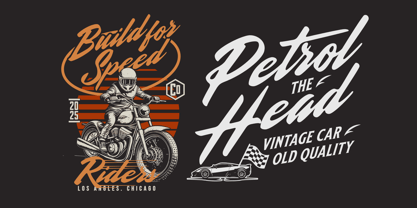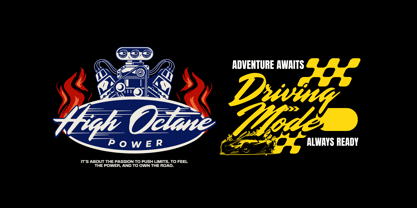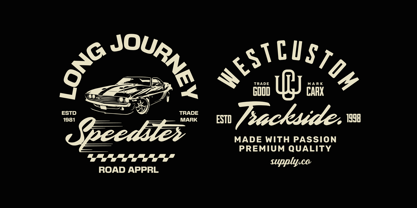
Highway Man
by Mans Greback
The Highway Man Font Family was designed by Måns Grebäck and published by Mans Greback. Highway Man contains 2 styles and family package options.
Highway Man is a high-speed script typeface with an intense, fast-moving style.
Its bold strokes and slanted letters create a sense of momentum, making it perfect for themes of adventure and rebellion. The unique horizontal motion lines running over the text makes it as if the characters are rushing forward on a highway.
With nods to vintage automotive culture and classic racing aesthetics while being inherently progressive, Highway Man carries both a retro and modern appeal.
The font is built with advanced OpenType functionality and guaranteed top-notch quality, containing stylistic and contextual alternates, ligatures and more automatic and manual features; all to give you full control and customizability.
It has extensive lingual support, covering all Latin-based languages, from North Europa to South Africa, from America to South-East Asia. It contains all characters and symbols you'll ever need, including all punctuation and numbers.
The font is created by Mans Greback with direct inspiration from the typographic work of Dan Cassaro.
Designers: Måns Grebäck
Publisher: Mans Greback
Foundry: Mans Greback
Design Owner: Mans Greback